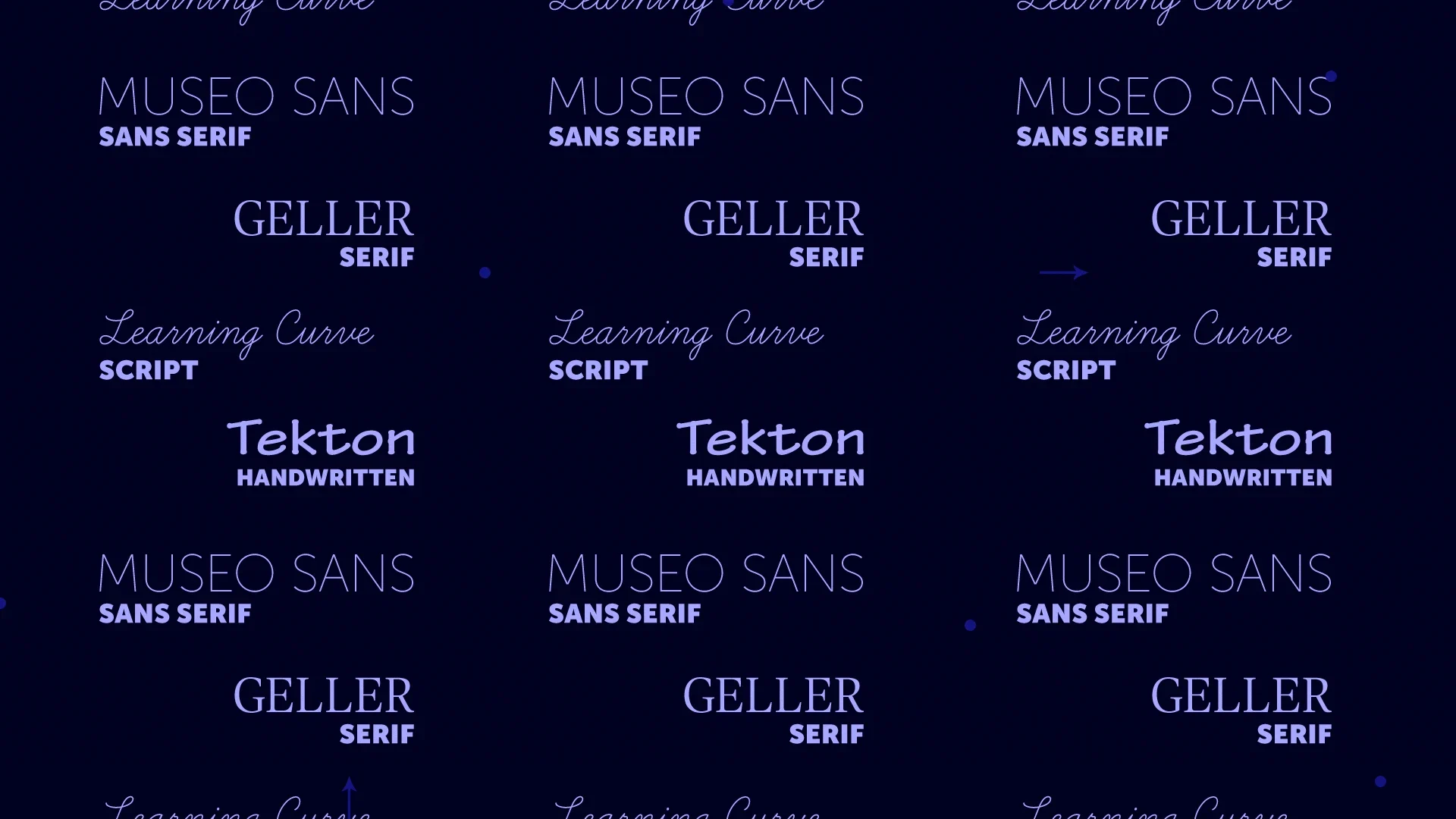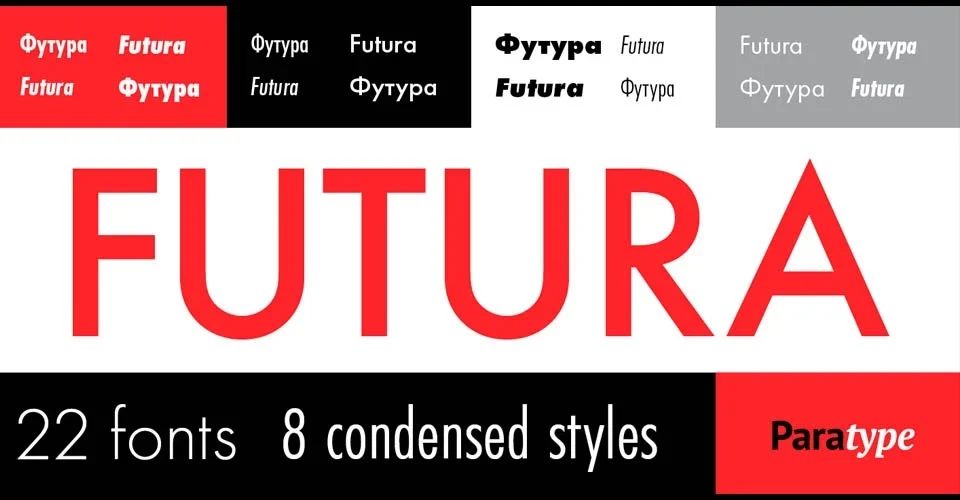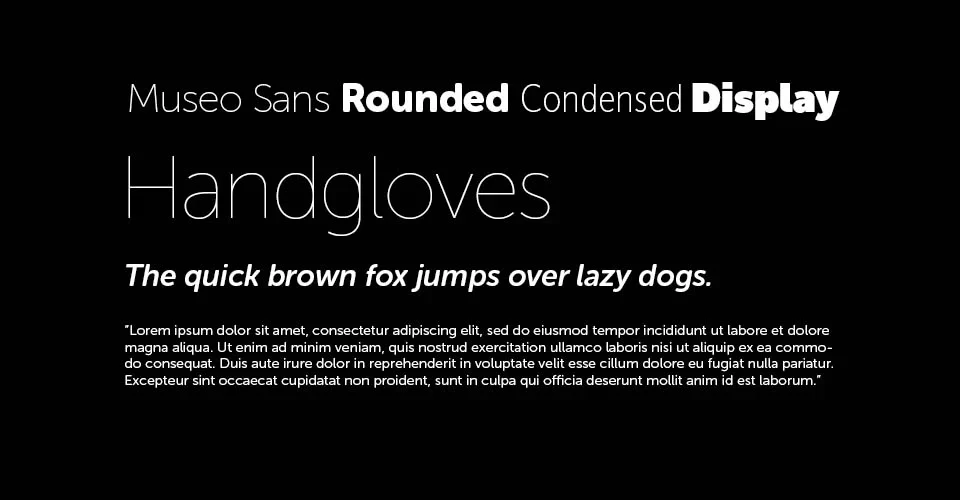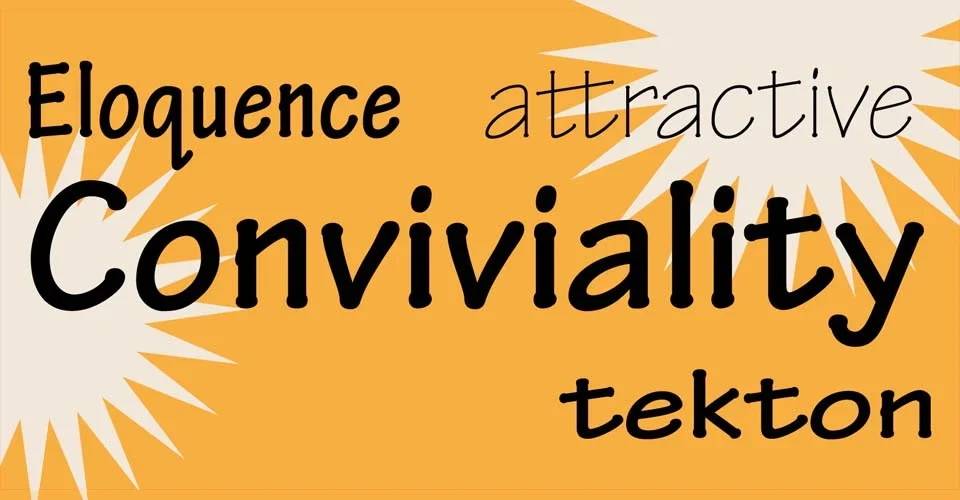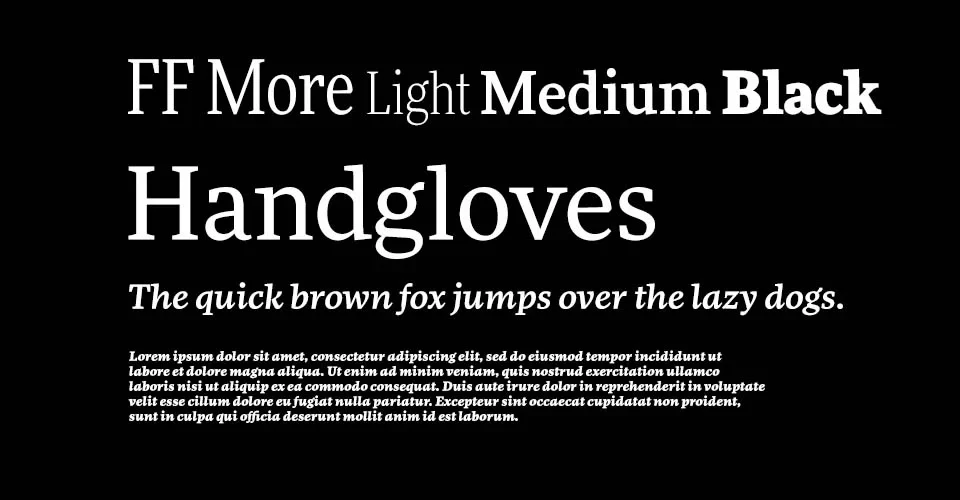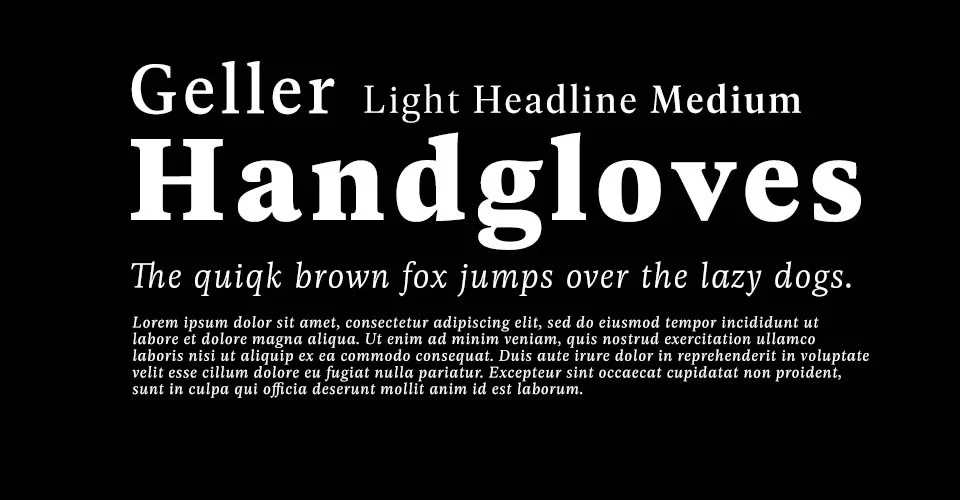
The Best Typefaces in Adobe Fonts 2022
With over 20,000 fonts to choose, Adobe Fonts is a gluttony of selection. Here's our guide to our favorite typefaces for 2022.
Tackling typography? Here are the best typefaces in Adobe Fonts for 2022.
Adobe Fonts is a massive collection of typefaces that comes free with your subscription to Creative Cloud. Over 20,000 fonts are available at your beck and call, but how can you decide which one is the best? If you’re overwhelmed by the possibilities, we’re here to sort through the chaos and help you find your new favorite fonts.
Typography is an important part of design. There is simply no easier way to communicate a message with your audience than by simply spelling it out for them. However, not all letters are created equal. No, we’re not talking about Windings, but the font you choose has a palpable effect on your reader, so you have to choose wisely. In this article, we’ll show you:
The difference between Serif and Sans Serif
Why you should choose legible fonts over stylish ones
How to choose fonts for headers versus paragraphs
How to keep your type clean
How to choose fonts that go well together
How to pick a more unique, special font
Options for Serif, Sans Serif, Script, and Handwritten
What is the difference between Serif and Sans Serif?
You probably already know the difference between a Serif and a Sans Serif typeface; if not, read this first. Typefaces are generally sorted into two categories. Serif fonts come with a decorative stroke, usually around the bottom of the character. These “feet” add a sharp look that enables the letter to attend black tie events without causing a stir, but can seem overdressed when advertising an all-you-can-eat burrito bowl bonanza.
Meanwhile, Sans Serif typefaces dismiss with the pomp and circumstance, leaving only naked letters showing off the purity of the form. These are clean and simple designs that effectively communicate with the viewer, but they aren’t welcome in some country clubs (and might elicit a few gasps from the more discerning audience members).
So now what? How do you go about differentiating from the thousands of options of typefaces available?
How to choose the best typeface in Adobe Fonts
Choose legible fonts
This may seem obvious but some typefaces are really hard to read, especially if they are on screen for 3 seconds. Make sure to pick a typeface that is easy to read. Aim for clean lettering, a thicker weight, and even spacing. If your letters are too crunched together, the reader might not be able to parse out the words in time. If they’re too spread apart, words get lost in the chaos.
Look for a font with a variety of styles
Most of you understand how to use Italics, Bold, and Underline to provide emphasis, however not every font family is going to have these options. When selecting a typeface, check that there are variable options for weights and styles, especially with regards to Header (Display) options. If your client has a brand book, this probably won't matter; but if you have to design titles which involve text, then you will probably need a typeface that can accommodate the script from a single word to a sentence. Look for typefaces that work well when kerned tightly, as sometimes your titles will have to be big and prominent on screen.
Look for clean and flexible characters
If you’re designing posters or static text, you can be a bit more flexible with your font choices. However, if you’re animating your letters, you need to be more considerate. More often than not, you’ll be dealing with titles rather than setting paragraphs of text. You may even need to do some "stretchy type," which is still a popular style.
Make sure to pay close attention to the geometry of the individual characters (lowercase and uppercase). The cleaner the geometry, the fewer issues you can potentially come across if you need to animate the individual letters.
Choose typefaces that work together
:quality(86))
Make sure the typefaces you choose work well together. Contrast is important when it comes to good design, and it is no different when it comes to typefaces. Choose typefaces that have good visual contrast with each other when combined.
Test out your fonts and find that special “something”
:quality(86))
Adobe Fonts allows you to test out your typefaces so you can see exactly what you’re getting. When selecting typefaces, I like to look at my script first and get an idea for the words that I will have to animate. Then I type those words into Adobe Fonts so that I visually see what those words will "feel" like in a typeface.
I also look for that “special glyph” that sets one typeface apart from the others. It’s easy to overdo it, so make sure the typeface is well designed and that the letters don’t call too much attention to themselves.
Here are some recommended fonts to get you started on your next project
With all that in mind, there are a few fonts that we feel are capable of knocking out almost any project. Here are our recommendations for go-to fonts so you can jump right into your next project.
Serif option
:quality(86))
Geller is a beautiful and clean serif typeface designed for both headlines and text. The clean elegant glyphs are reminiscent of more traditional typefaces, but yet it has a modern, fresh, clean look. The italics are just delicious. Plenty of options for your projects.
:quality(86))
FF More combines the cleanness of a sans serif with a slab serif. Handy when working on a project that needs a very clean design.
:quality(86))
Freight has plenty of weights to work as titles or subtitles. The italic options have a chiseled almost pen like quality that can add some character to a design.
:quality(86))
Abril is a workhorse typeface that comes with many options and works in most cases without much kerning. Well designed and clean enough to work on a wide array of projects from corporate to fun, very versatile.
Sans Serif option
:quality(86))
When you want to look sharp without dressing up, Museo Sans is the Sans Serif choice du jour.
Museo Sans has not only enough options when it comes to weights—especially with its hefty Museo Sans Display Extra Black—but the typeface also has rounded and condensed versions. There are enough variations that should accommodate most words and phrases needed in your project.
:quality(86))
Futura has been around since 1927, and since then has been a favorite amongst designers because of its clean geometric style. If you need a typeface that will stand the test of time—and work within a clean design—Futura is a safe option.
:quality(86))
Owners offers a ton of options—including wide, which comes in handy when you need to fill the screen with a short word. Owners design is clean but friendly, which makes it a good candidate for fun branding campaigns.
:quality(86))
Cairo has a squarish style that can come in handy on projects that need more angular designs, or tight blocks of text in your titles.
Script option
What about script fonts and handwritten fonts?
While these fonts are probably only reserved for select projects, it is good to have a few options at hand for those times when they are needed. Same principles as before apply.
:quality(86))
Learning Curve is a script typeface which also has a very mono design to it. This is handy for us motion designers because most of the time we will be revealing script fonts as if they were being written on. Having a script typeface which is the same width throughout will facilitate the process a lot. You are welcome!
Handwritten option
Tekton is a well designed font that rides the line between handwritten and digital. It is clean and simple. An interesting thing about this typeface is that the different fonts seem to have slightly different slant angles, which can come in handy if you are needing to go for that "handwritten" look.